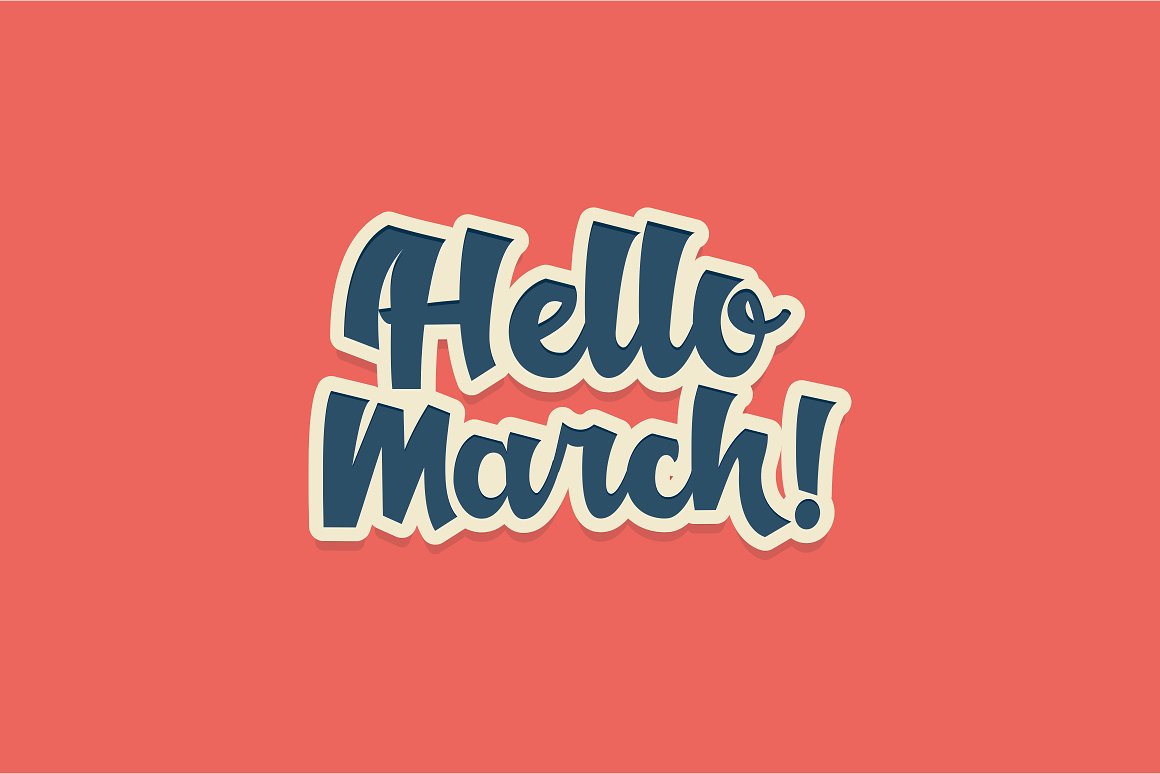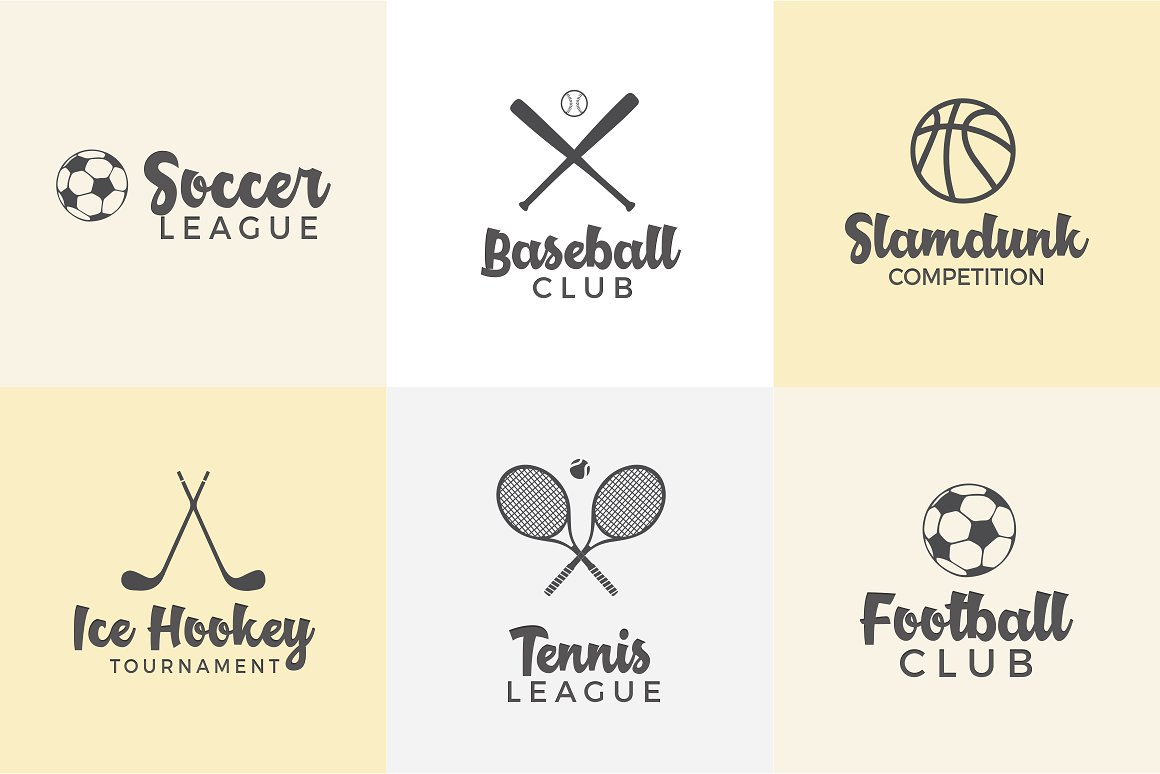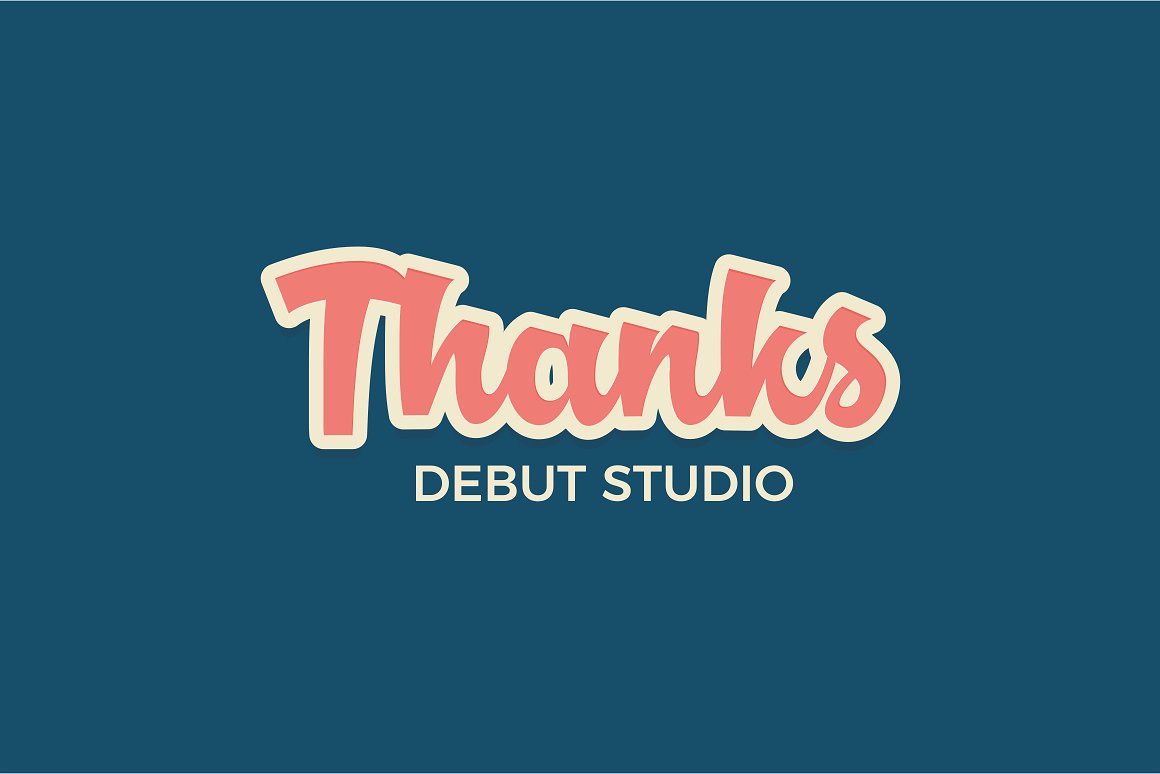
Middle Class Script Font
Middle Class Script – Free Demo
Introducing Middle Class! It is designed by Debut Studio, this is a premium font, are sold on creativemarket, but it was great, it is free today for download. Middle Class Script inspired from hand-drawn lettering style and logotype, This fonts have uppercase, lowercase, numerals, punctuations and so many variations on each characters include opentype alternates, common ligatures and also additional swash to let you customise your designs. So Suitable to use for Logotype, Letterhead, Poster, Apparel Design, Label and etc